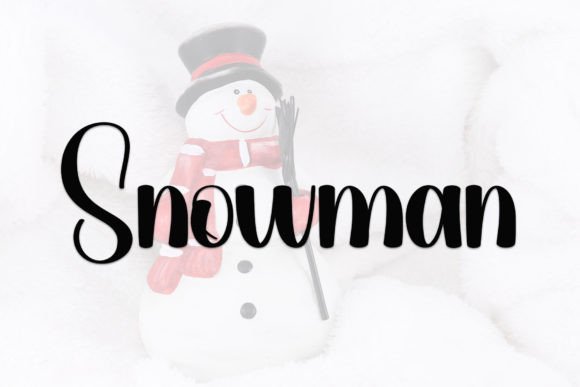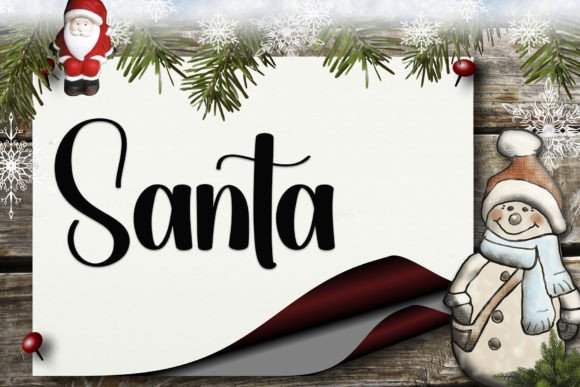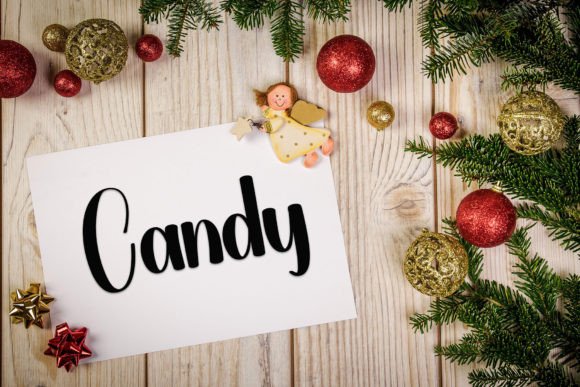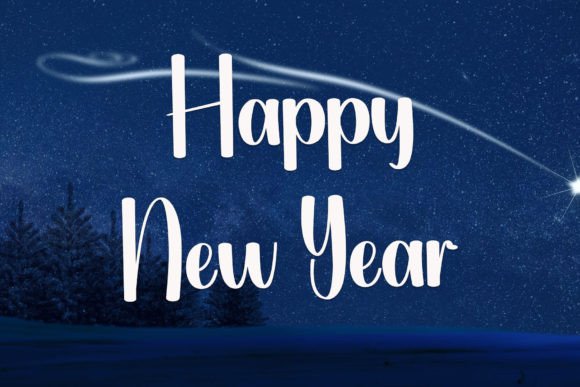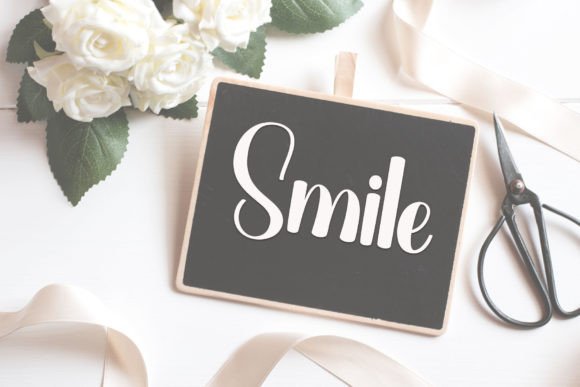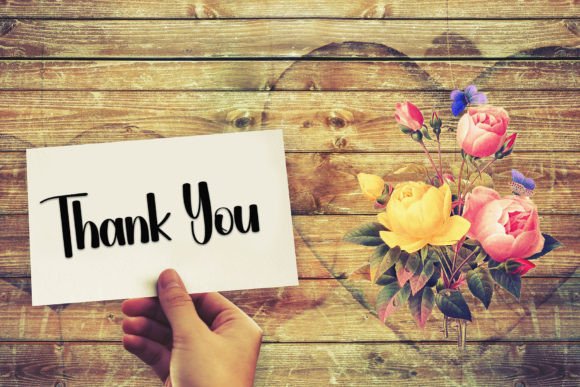
Introducing Christmas Blessings Font: A Timeless Classic for Your Holiday Projects
As the holiday season approaches, designers and crafters are on the lookout for the perfect font to add a touch of elegance and sophistication to their Christmas projects. Look no further than Christmas Blessings Font, a stylish handwritten font that embodies the spirit of the season. Inspired by timeless classic calligraphy, this font is sure to bring a contemporary atmosphere and impeccable form to your designs.
What Makes Christmas Blessings Font So Special?
Christmas Blessings Font is a beautifully crafted font that boasts a balanced and varied design, making it perfect for enhancing the beauty of your projects. With its PUA encoding, you can easily access all the amazing glyphs and ligatures, allowing you to create stunning text-based designs with ease. Whether you’re working on holiday cards, gift tags, or festive posters, this font is sure to make your projects stand out.
Key Features of Christmas Blessings Font
- Stylish Handwritten Design: Christmas Blessings Font features a stylish handwritten design that is both elegant and sophisticated.
- Contemporary Atmosphere: With its modern take on classic calligraphy, this font is perfect for designers looking to create contemporary holiday designs.
- Impeccable Form: The font’s balanced and varied design ensures that your text-based designs will always look polished and refined.
Christmas Blessings Font is perfect for designers and crafters who want to add a touch of elegance and sophistication to their holiday projects. Whether you’re creating holiday cards, gift tags, or festive posters, this font is sure to make your projects stand out. With its easy-to-use design and PUA encoding, you can quickly and easily create stunning text-based designs that will leave a lasting impression.
Tips for Using Christmas Blessings Font
- Pair with Other Fonts: Experiment with pairing Christmas Blessings Font with other fonts to create unique and eye-catching designs.
- Use for Headings and Titles: Use Christmas Blessings Font for headings and titles to add a touch of elegance and sophistication to your designs.
- Experiment with Colors: Try experimenting with different colors to find the perfect combination for your holiday designs.
Christmas Blessings Font is a must-have for designers and crafters looking to add a touch of elegance and sophistication to their holiday projects. With its stylish handwritten design, contemporary atmosphere, and impeccable form, this font is sure to make your projects stand out. So why wait? Download Christmas Blessings Font today and start creating stunning holiday designs that will leave a lasting impression.
- What is Christmas Blessings Font?: Christmas Blessings Font is a stylish handwritten font with a contemporary atmosphere and impeccable form, inspired by timeless classic calligraphy.